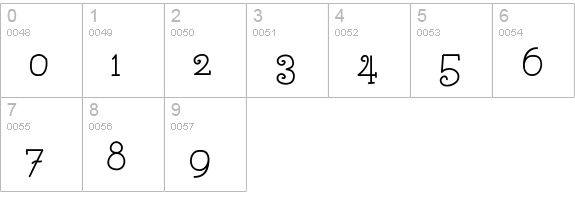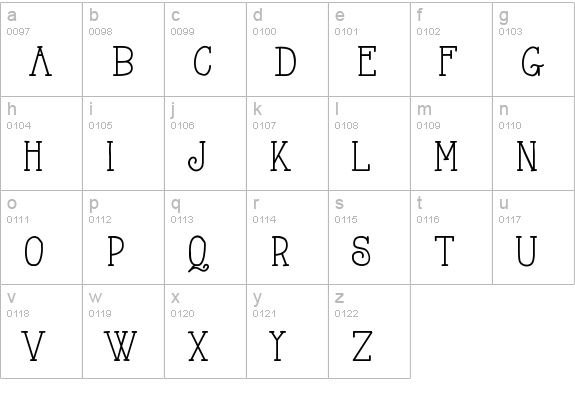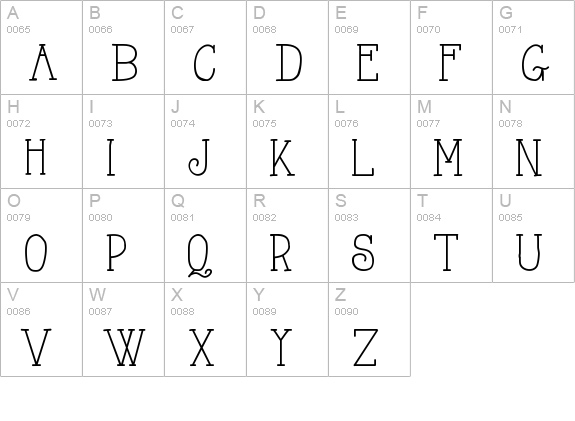
AlwaysHereToo Font Details
AlwaysHereToo is a visually captivating font that is sure to make a lasting impression. With its elegant and graceful design, this font effortlessly combines sophistication with a touch of playfulness. Its slightly rounded edges and smooth curves give it a modern and contemporary feel, making it perfect for a wide range of creative projects. This font is not only aesthetically pleasing but also incredibly versatile. Whether you're designing a logo, creating a poster, or crafting a social media graphic, AlwaysHereToo will add a unique and eye-catching element to your work. Its legibility and clarity make it easily readable in both large display sizes and smaller text formats. But what truly sets AlwaysHereToo apart is that it is free. Yes, you read that right! This exceptional font is freely available to download at FontsMarket.com, making it accessible to designers and creatives of all levels. So whether you're a seasoned professional or just starting out, you can now elevate your designs without breaking the bank. AlwaysHereToo is not only a font, but a statement. It represents the belief that high-quality design should be accessible to everyone, and that creativity knows no boundaries. So go ahead, unleash your imagination and let this beautiful font be your creative companion. Download AlwaysHereToo today and see the difference it can make in your projects.